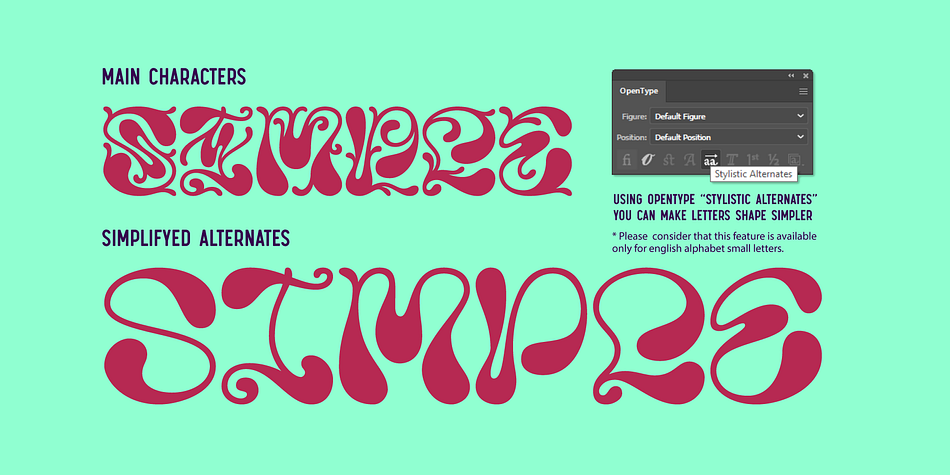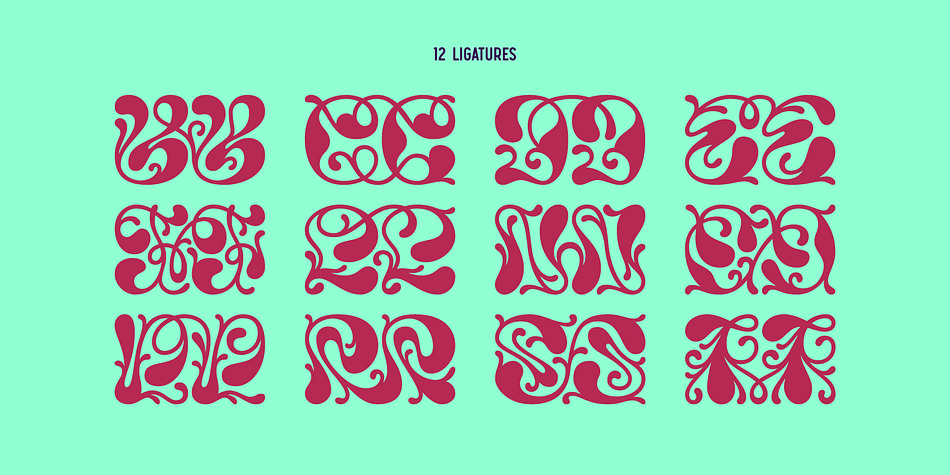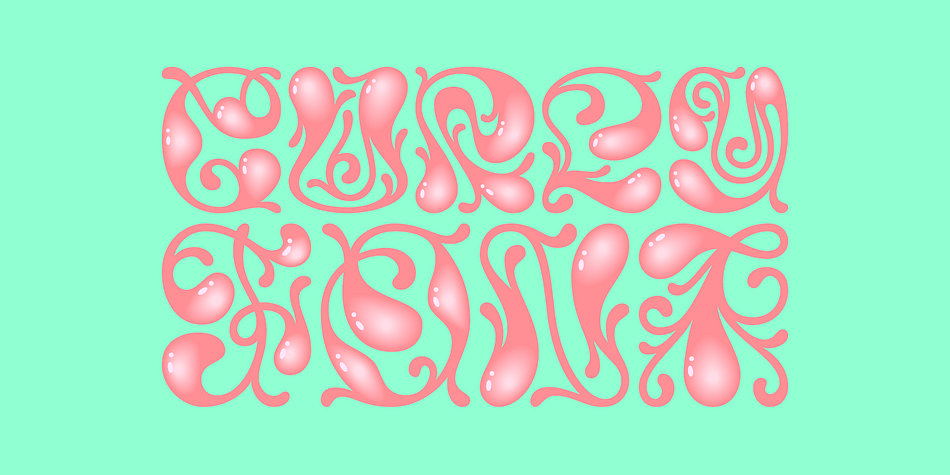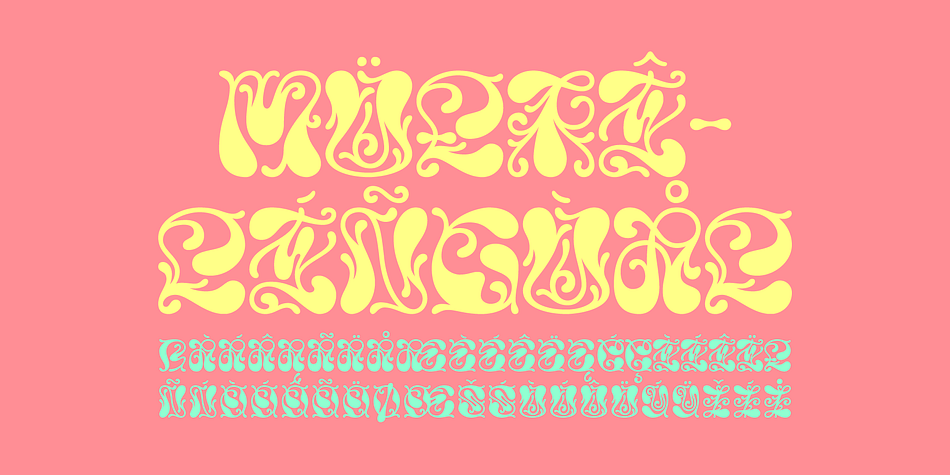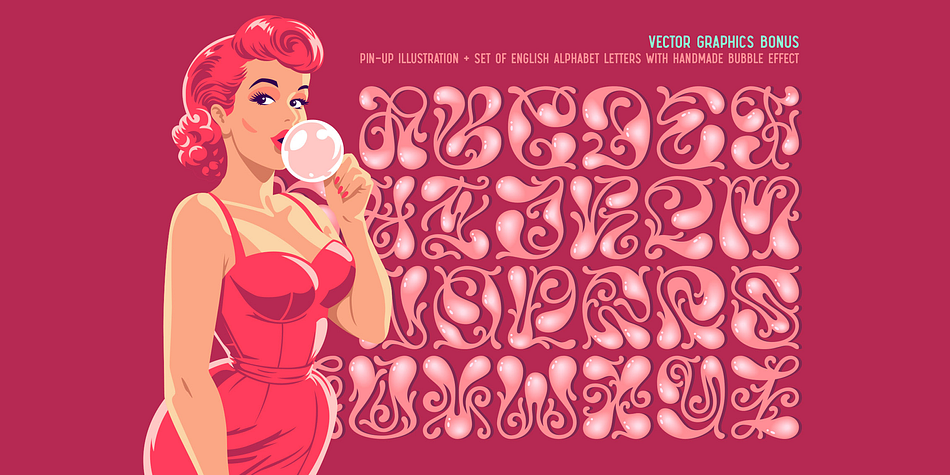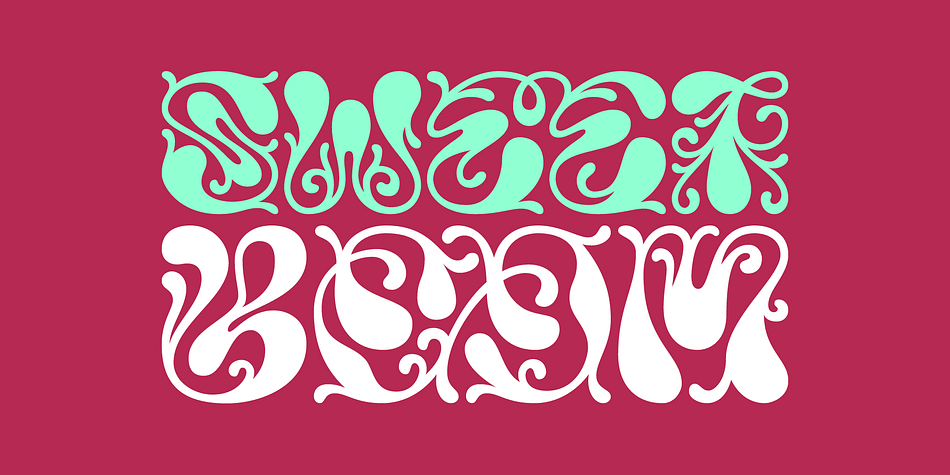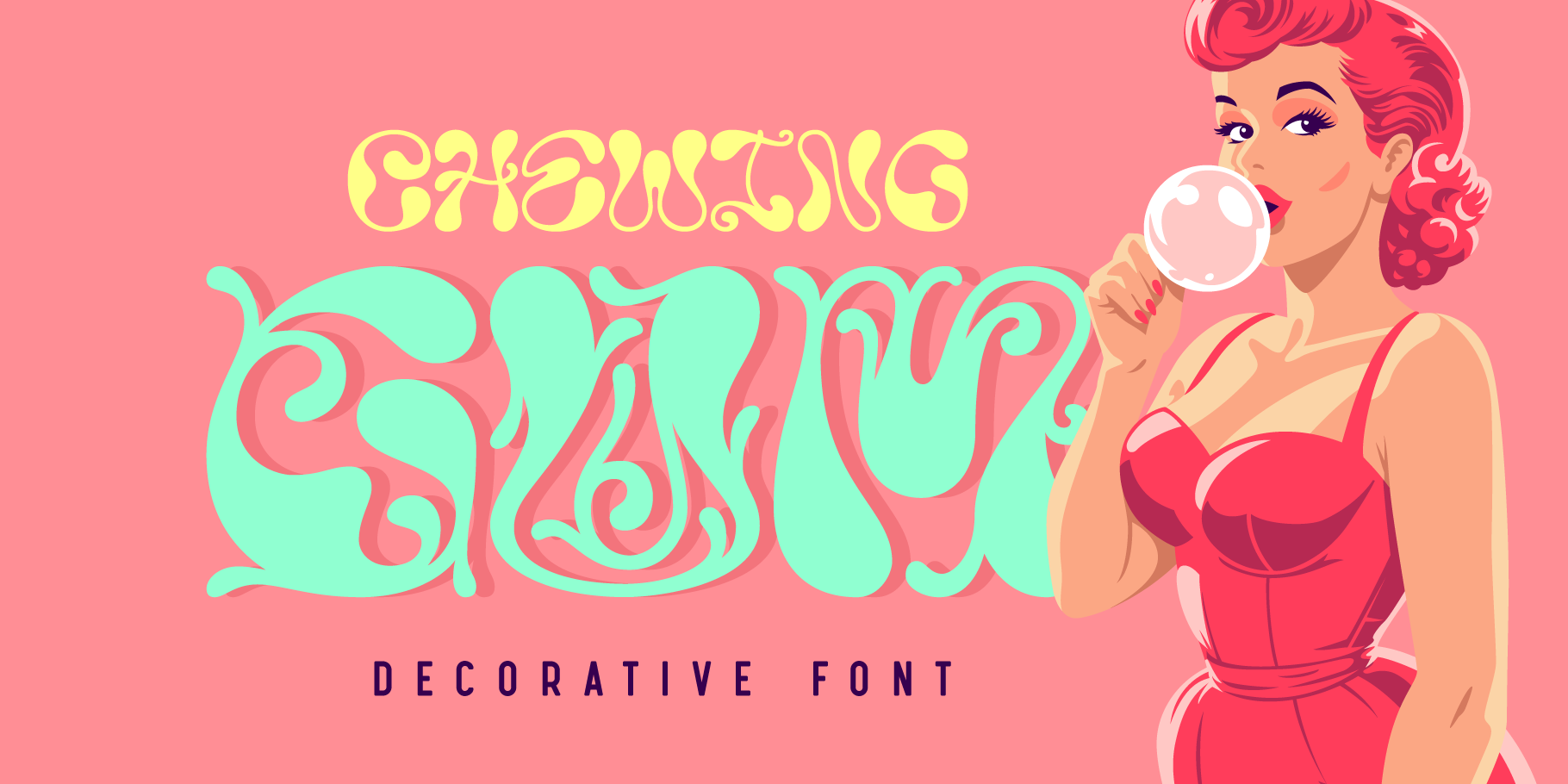
CHEWING GUM
Designed by Gleb Guralnyk, Chewing Gum is a display, monograms and novelty font family published by Gleb Guralnyk.
Hello! Introducing a decorative font named Chewing Gum. It’s an abstract shape smooth typeface with curly elements. For the English alphabet, there are alternative characters included. It basically simplified letters that are more readable in small sizes (You can access these letters by activating a “Stylistic Alternates” on your OpenType panel). Twelve fancy ligatures will make your lettering more organic and natural.
As a bonus, you’ll get a vector illustration of a beautiful pin-up girl. Also, a vector alphabet set with handmade volume glossy effects is included.